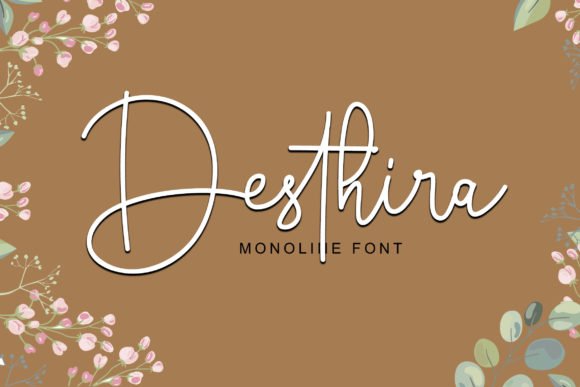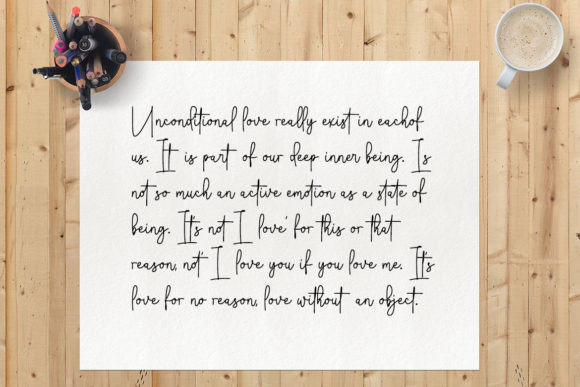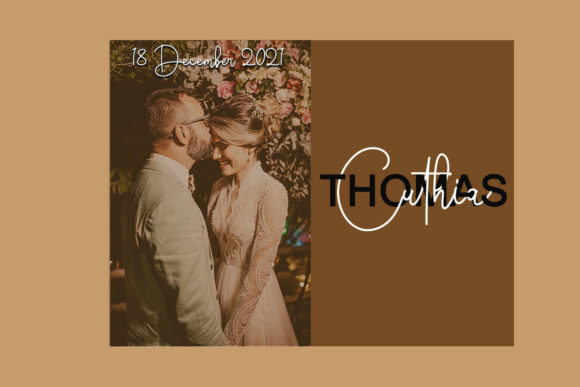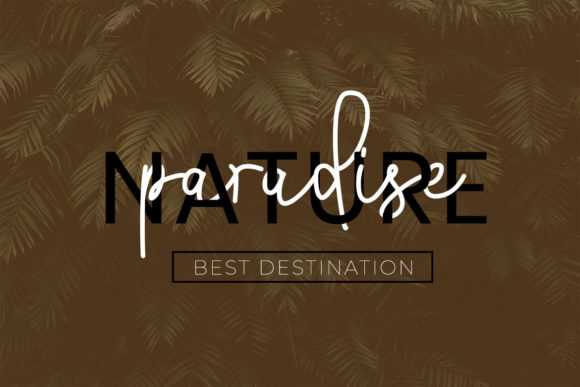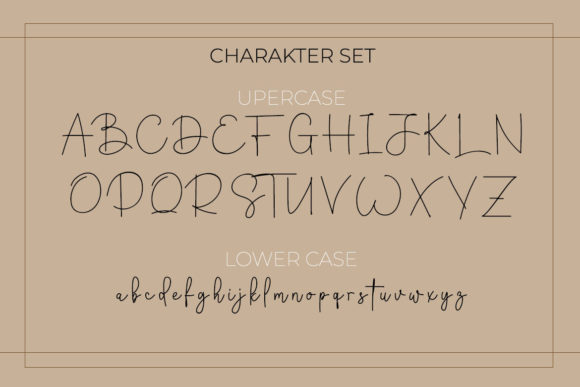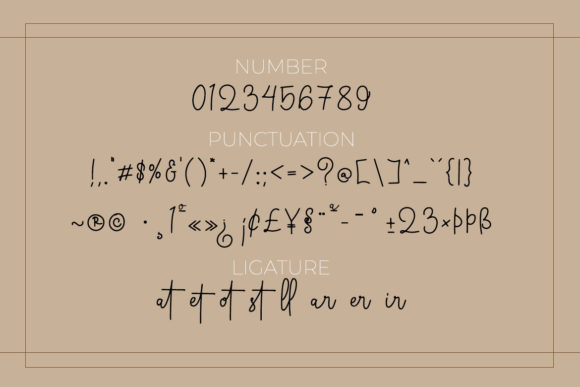
Unleash Your Creativity with the Elegant Desthira Font
Have you ever stared at a blank page, waiting for inspiration to strike? The cursor blinks, taunting you to start, but your mind is a blank slate. That’s when you need a little help from a trusted friend – a beautiful font that brings your vision to life. Enter the Desthira Font, a stunning script font that will make your designs shine.
This elegant and natural script font is a game-changer for designers. With its varying baseline, smooth lines, gorgeous glyphs, and stunning alternates, Desthira Font is the perfect tool to elevate your projects to new heights. Whether you’re a seasoned pro or just starting out, this font will help you create stunning visuals that captivate your audience. So why settle for ordinary when you can have extraordinary with the Desthira Font?
Desthira Font Key Features
- Font Family: Desthira Font is a beautiful, elegant script font designed for both personal and professional use.
- Unique Characteristics: Desthira Font features flowing connections, subtle flourishes, and a touch of whimsy, making it perfect for adding a personal touch to your designs.
Desthira Font Review
Overall, I found the Desthira font to be a unique and captivating choice for designers. Here are some aspects that stood out to me:
- ✨ Elegant aesthetic: The Desthira font has a refined and sophisticated look that makes it perfect for high-end branding, luxury products, or elegant editorial content.
- ✨ Versatility: Desthira can be used in a variety of settings, from body text to headings, and even for logos, thanks to its clean lines and smooth curves.
- ✨ Beautiful script: The Desthira script is a beautiful addition to the font, offering a range of cursive styles that can add a touch of elegance to any design.
- ⚠️ Limited character set: The Desthira font is a relatively new release, and its character set is still growing. Some characters may not be available or may be incomplete.
- ⚠️ Not ideal for small text: Due to its elegant and refined nature, Desthira may not be the best choice for small text or body copy, as it can become difficult to read.
Overall, I would recommend the Desthira font for designers who want to add a touch of sophistication and elegance to their designs. However, it’s essential to be aware of its limitations and use it judiciously to get the best results.
Tips for Getting the Most Out of Desthira Font
Desthira Font is a versatile and elegant font that can be used in a variety of contexts. To get the most out of it, consider the following tips:
- Use Desthira Font in headings and titles to add a touch of sophistication.
- Pair Desthira Font with a bold or italic font to create visual interest.
- Experiment with different font sizes and colors to create
The Desthira Font includes a comprehensive character set that supports over 100 languages, including Latin, Cyrillic, Greek, and Devanagari scripts. It also includes support for Unicode characters, emojis, and special symbols.